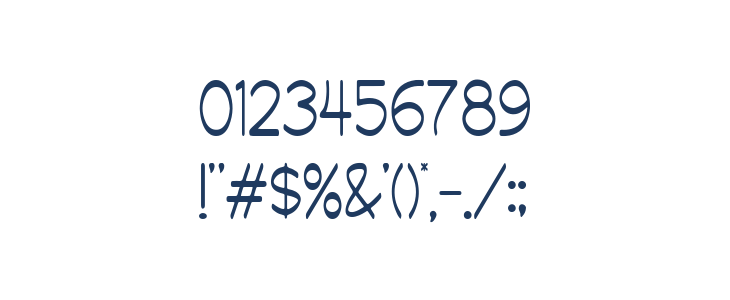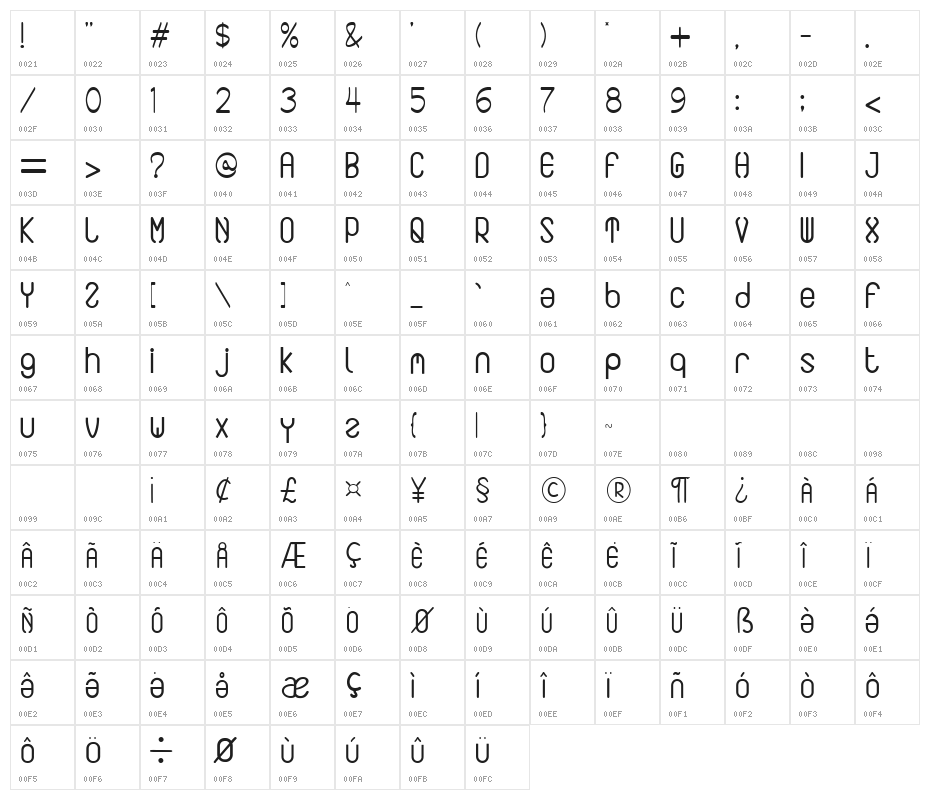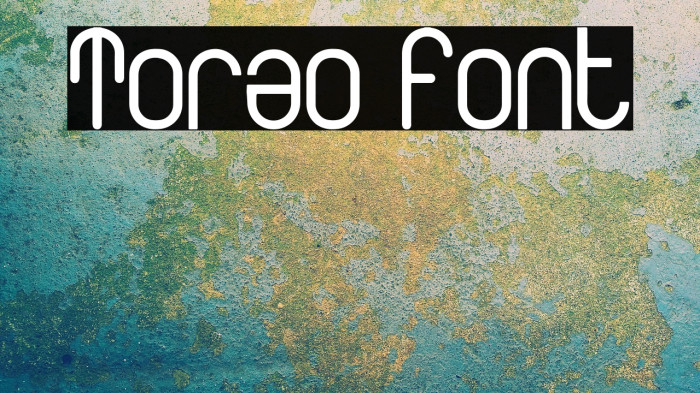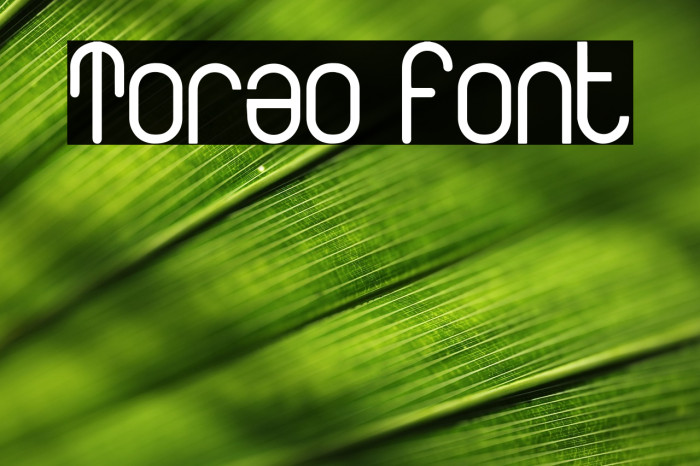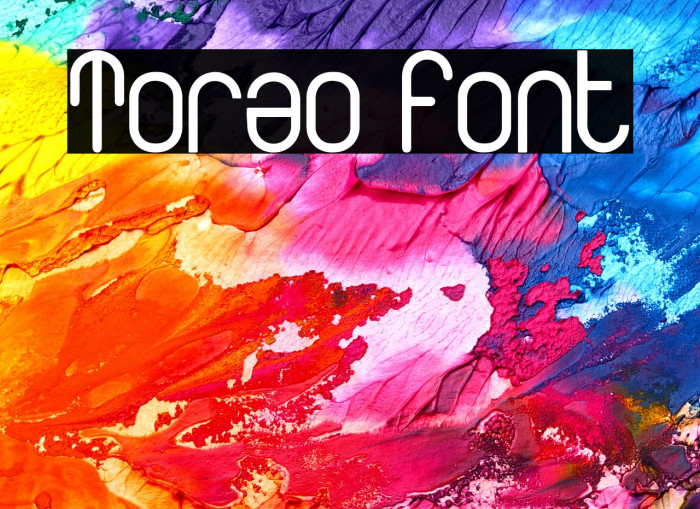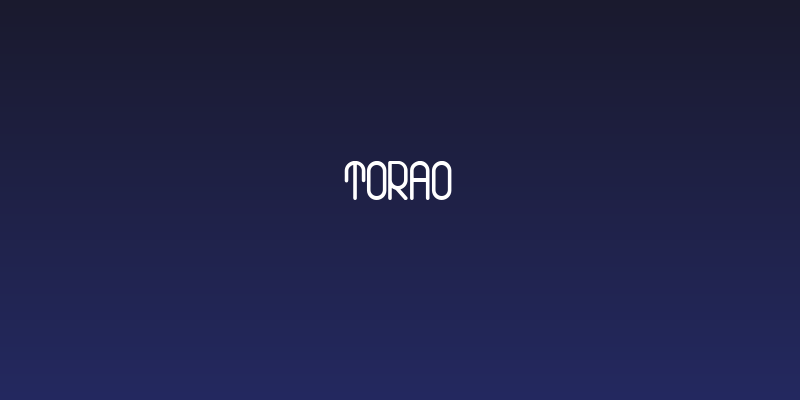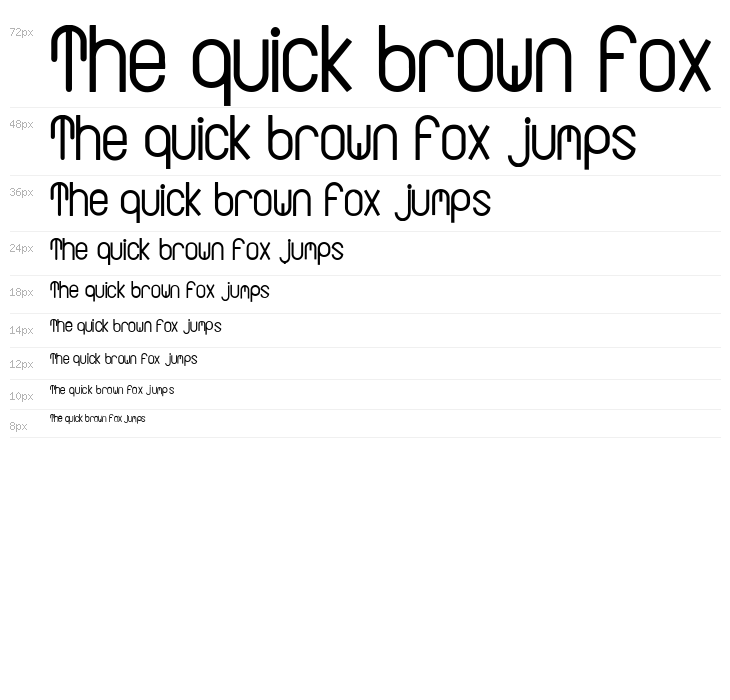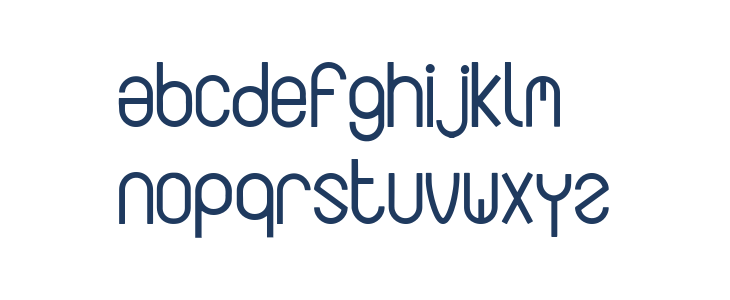
Torao Font
Torao Description
This font features a unique and modern design with rounded edges and a geometric structure. The characters are crafted with a consistent stroke width, giving it a clean and cohesive appearance. The uppercase letters are bold and striking, while the lowercase letters maintain a playful yet sophisticated look. Numbers and special characters are designed to match the overall aesthetic, ensuring uniformity across all elements. The font's style is both contemporary and versatile, making it suitable for a variety of design applications.
| Use Case | Headlines, Logos, Digital Media |
| Proposed Projects | Ideal for branding, advertising, and digital media projects that require a modern and clean aesthetic. |